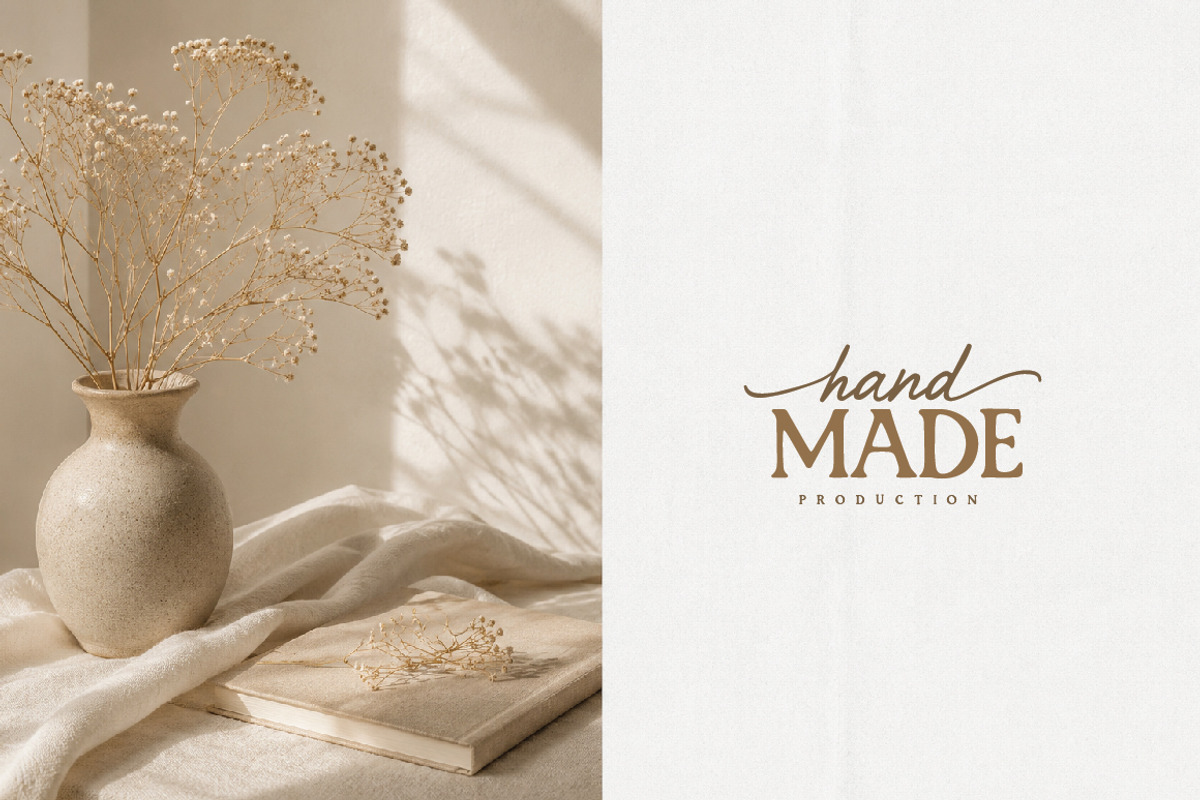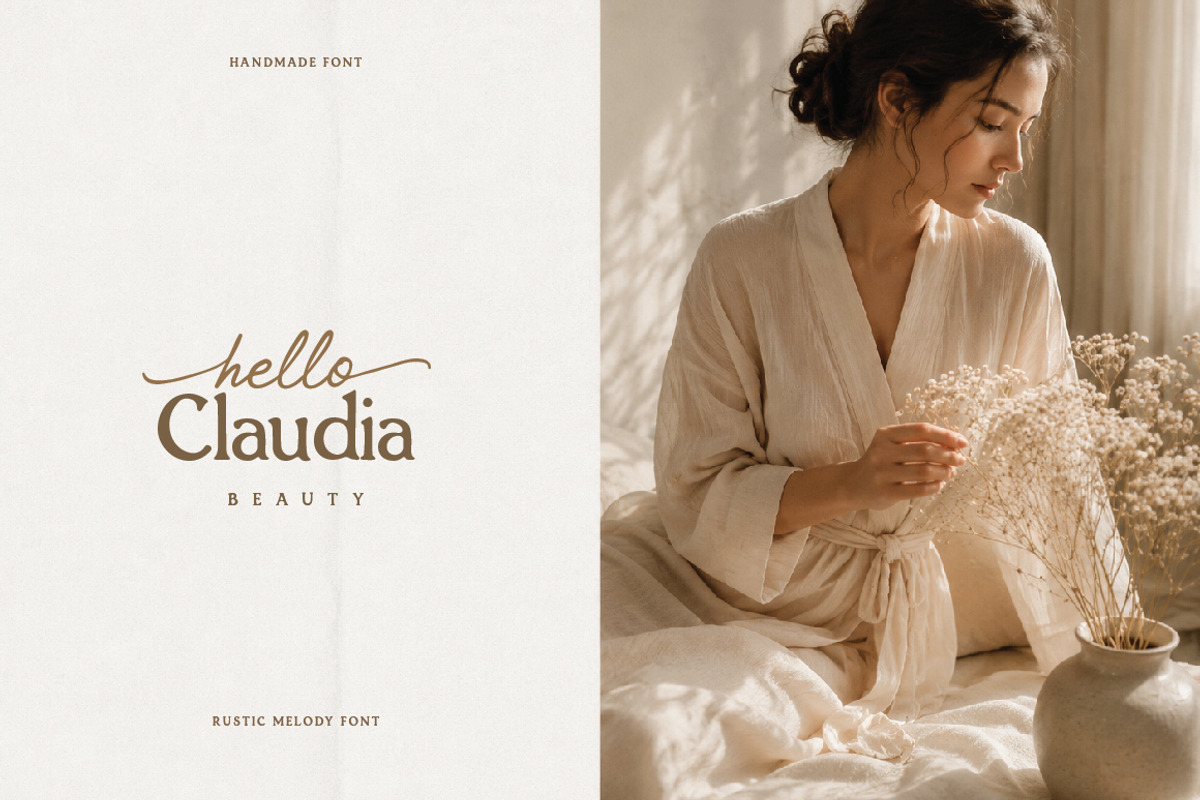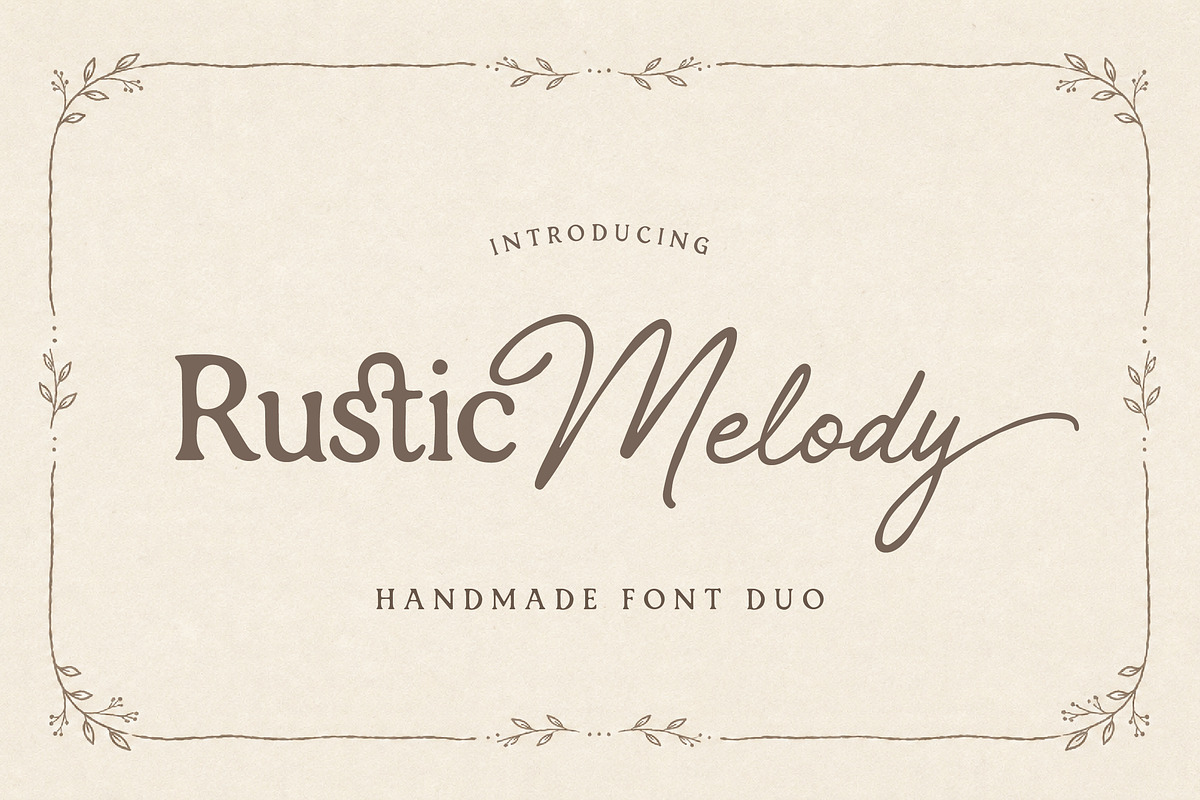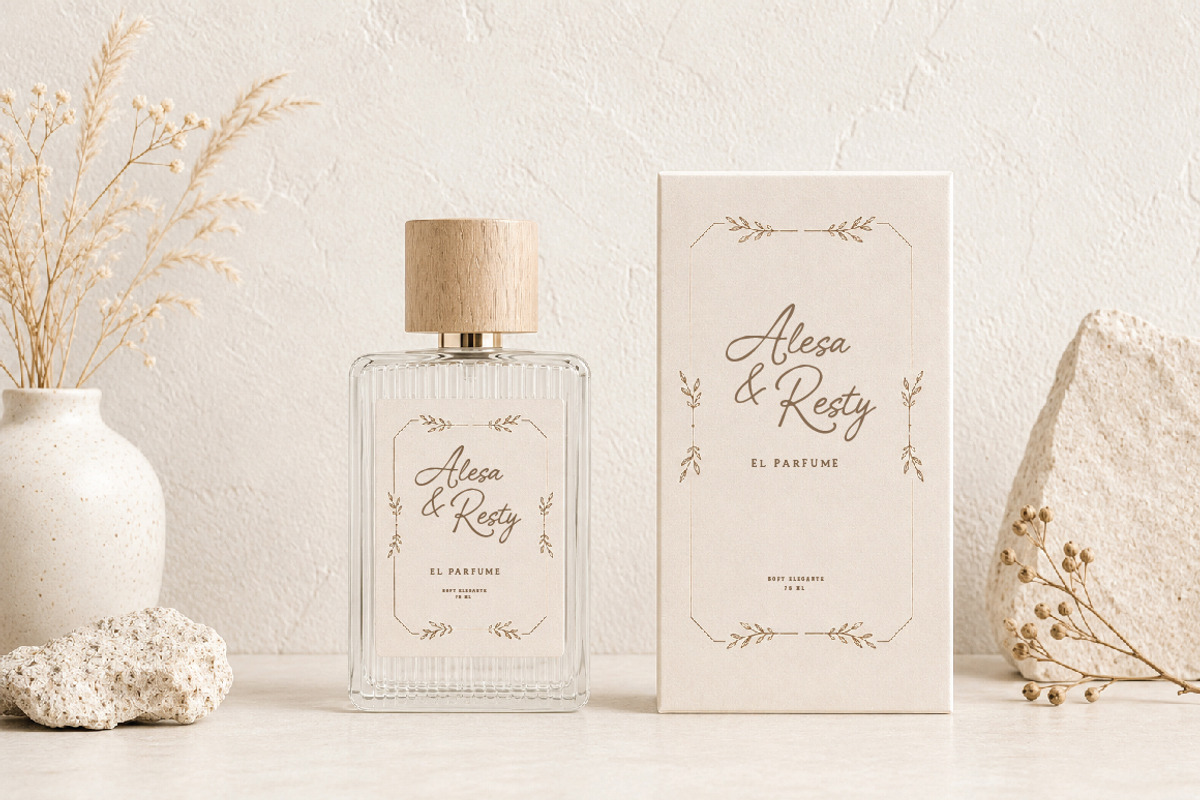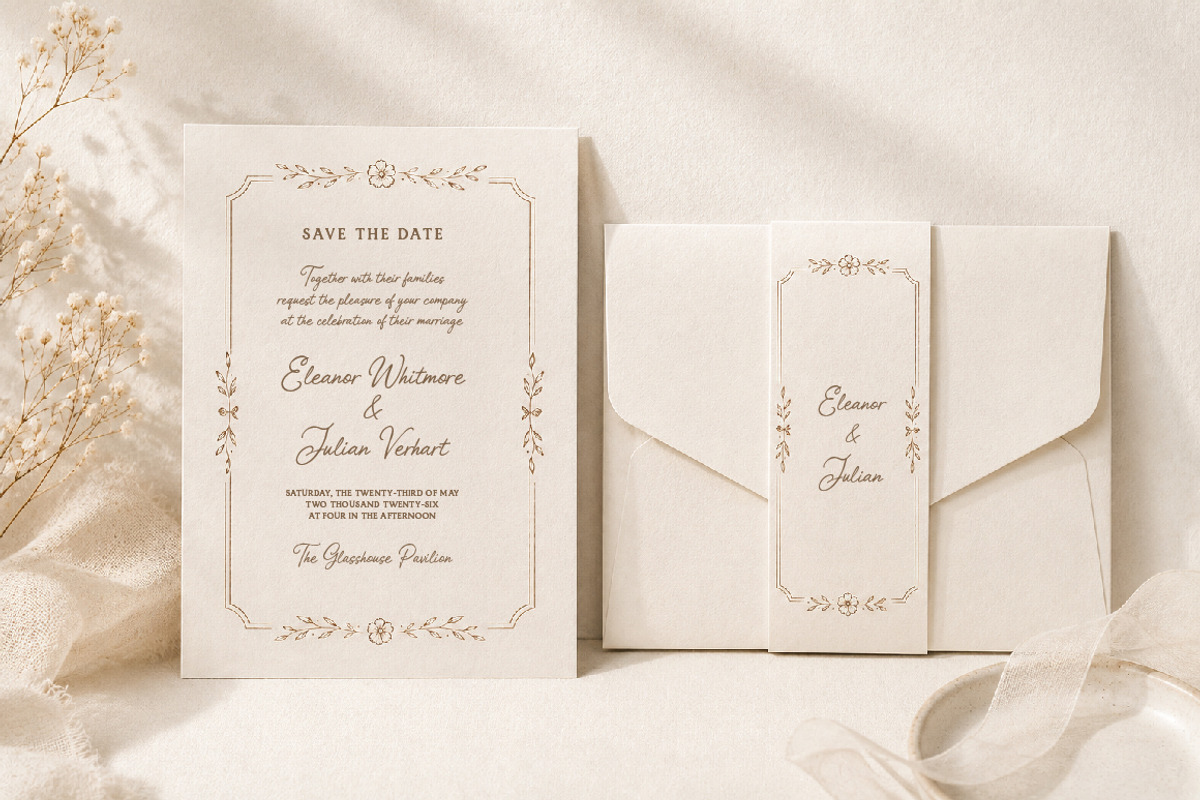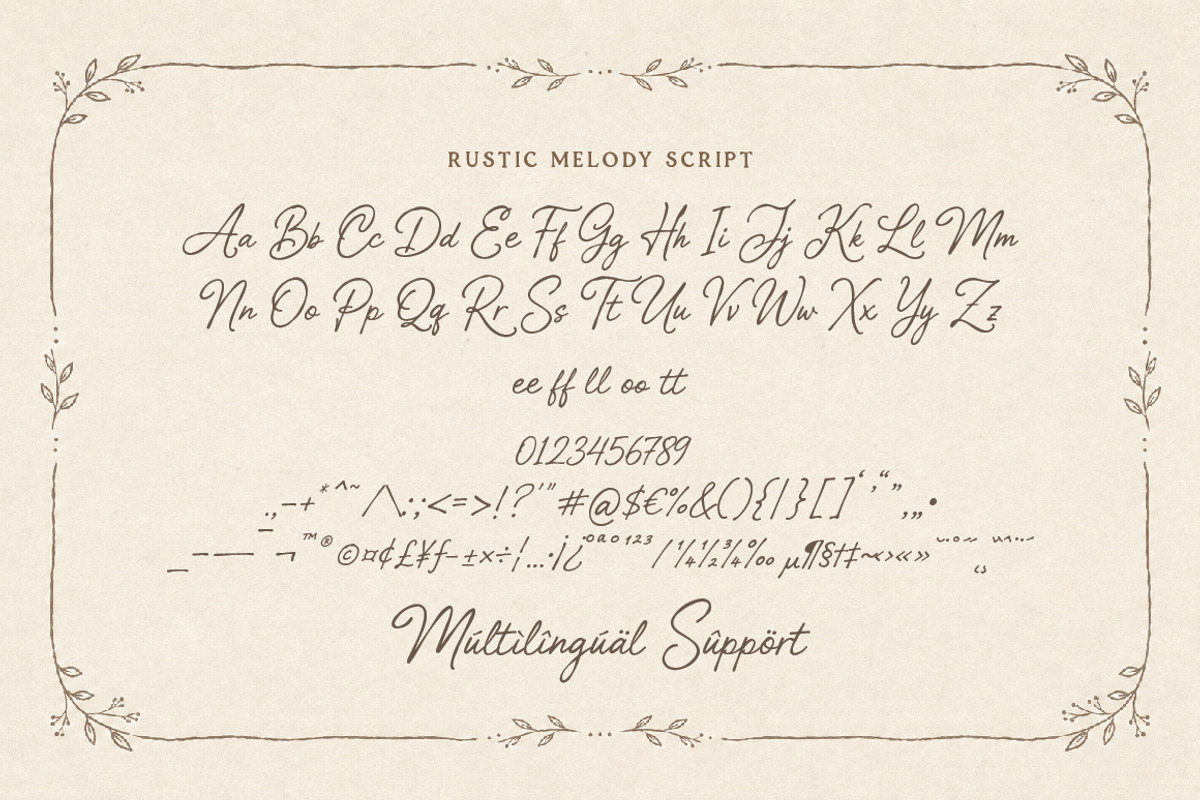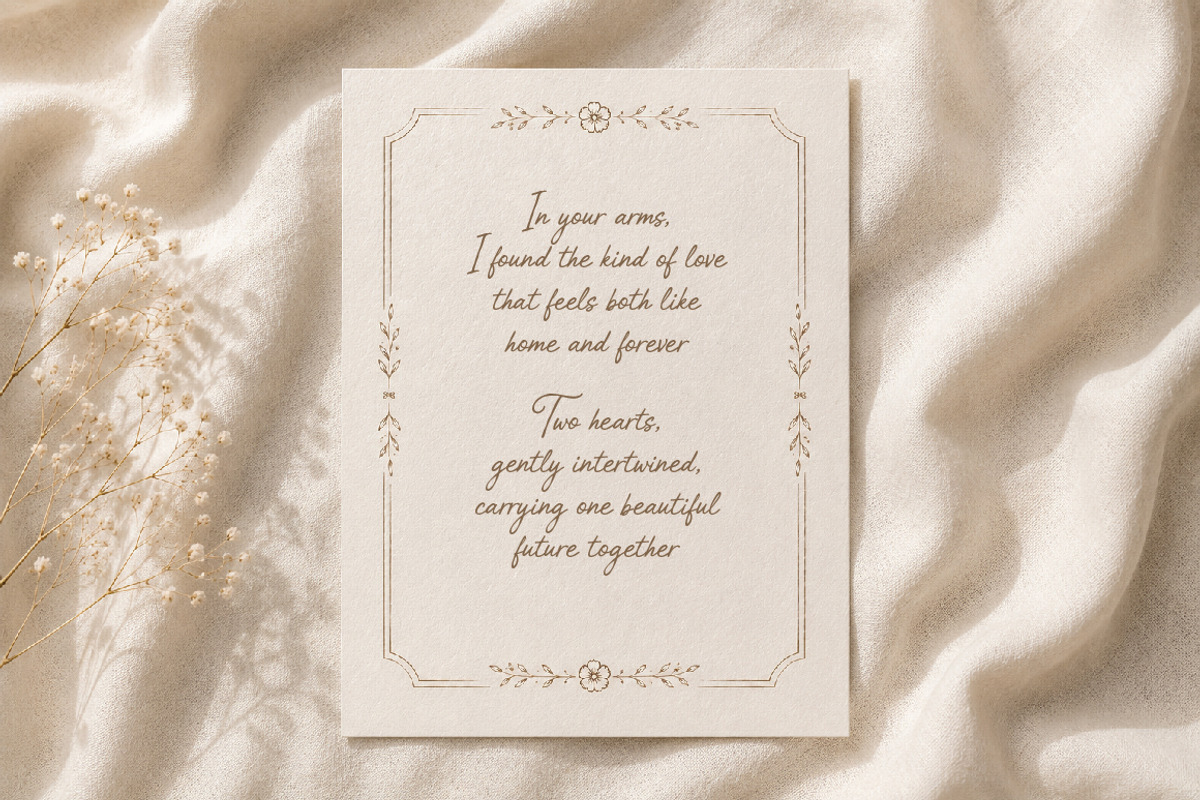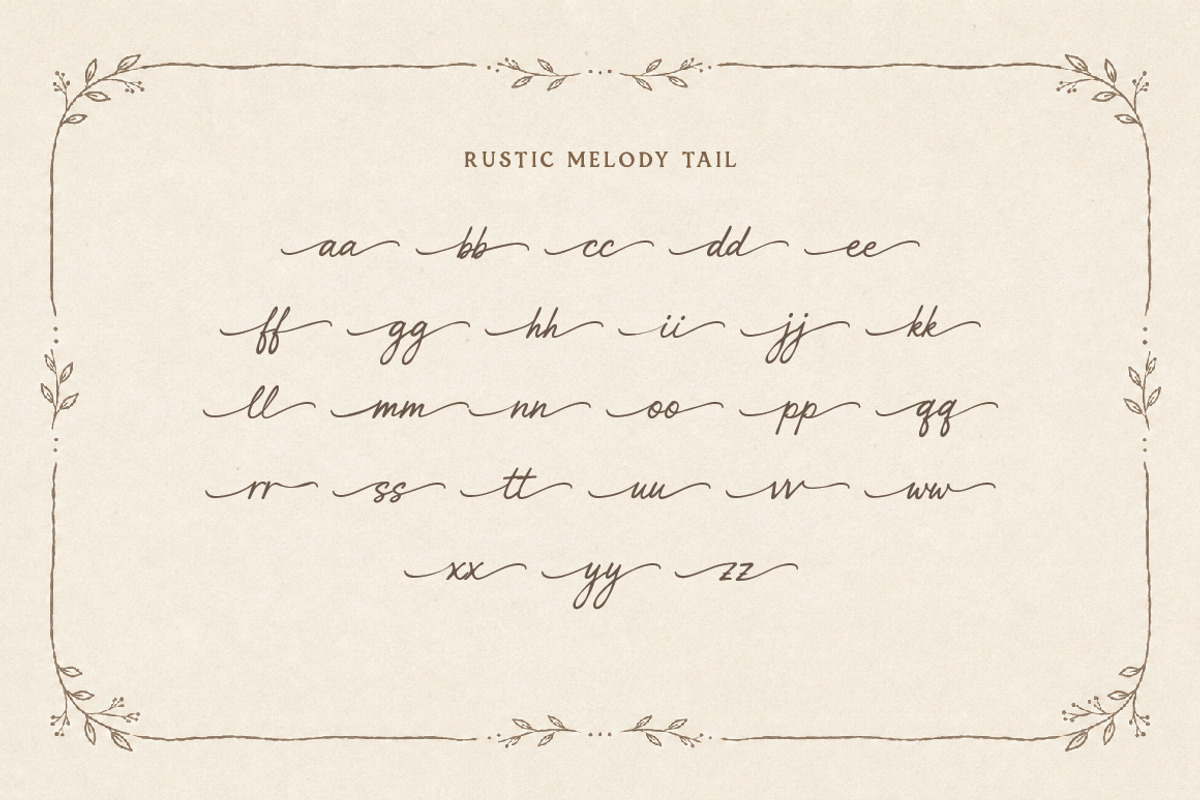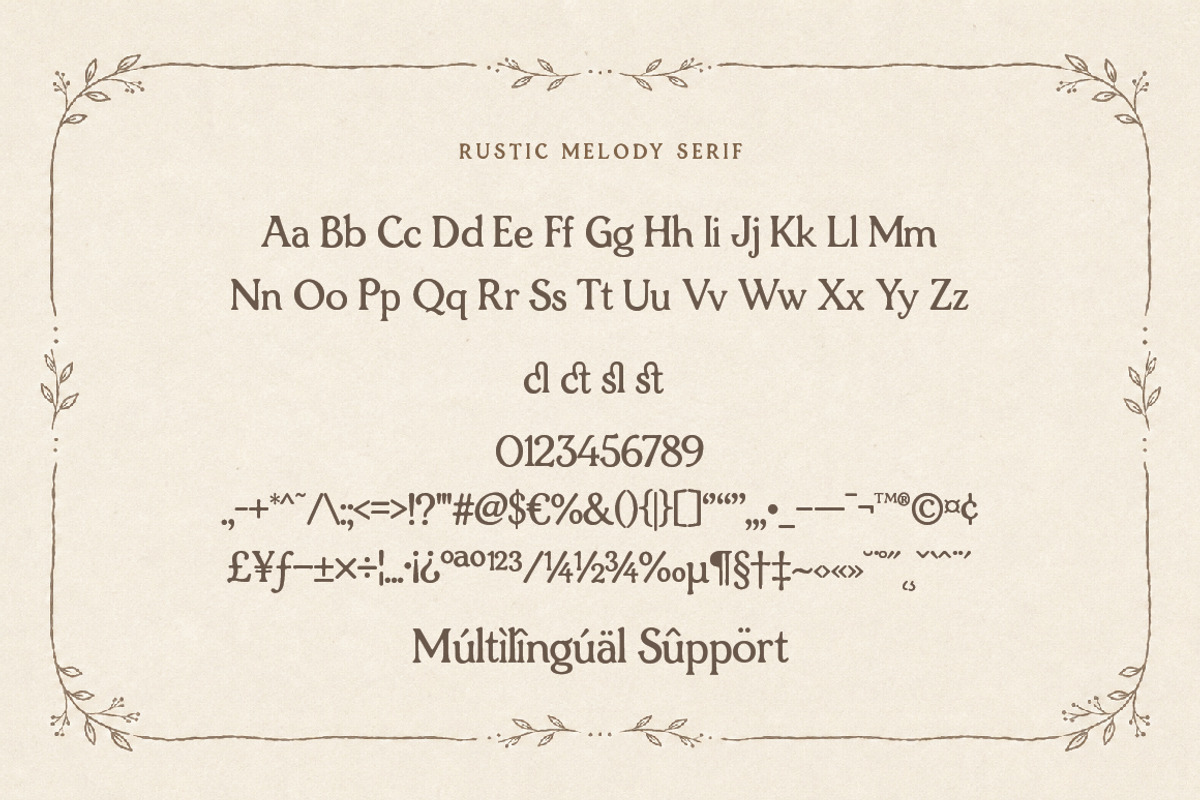
Rustic Melody - Handmade Font Duo
Rustic Melody is a beautiful handmade font duo that blends an elegant serif with a flowing signature script. Inspired by rustic weddings, warm countryside aesthetics, and timeless feminine design, this font is perfect for invitations, branding, logos, packaging, social media, photography, and editorial projects. The natural handwritten touch combined with classy serif details creates a romantic and authentic visual style.
Uppercase, Lowercase, Numbers & Punctuation
Ligatures, Beginning & Ending Swashes